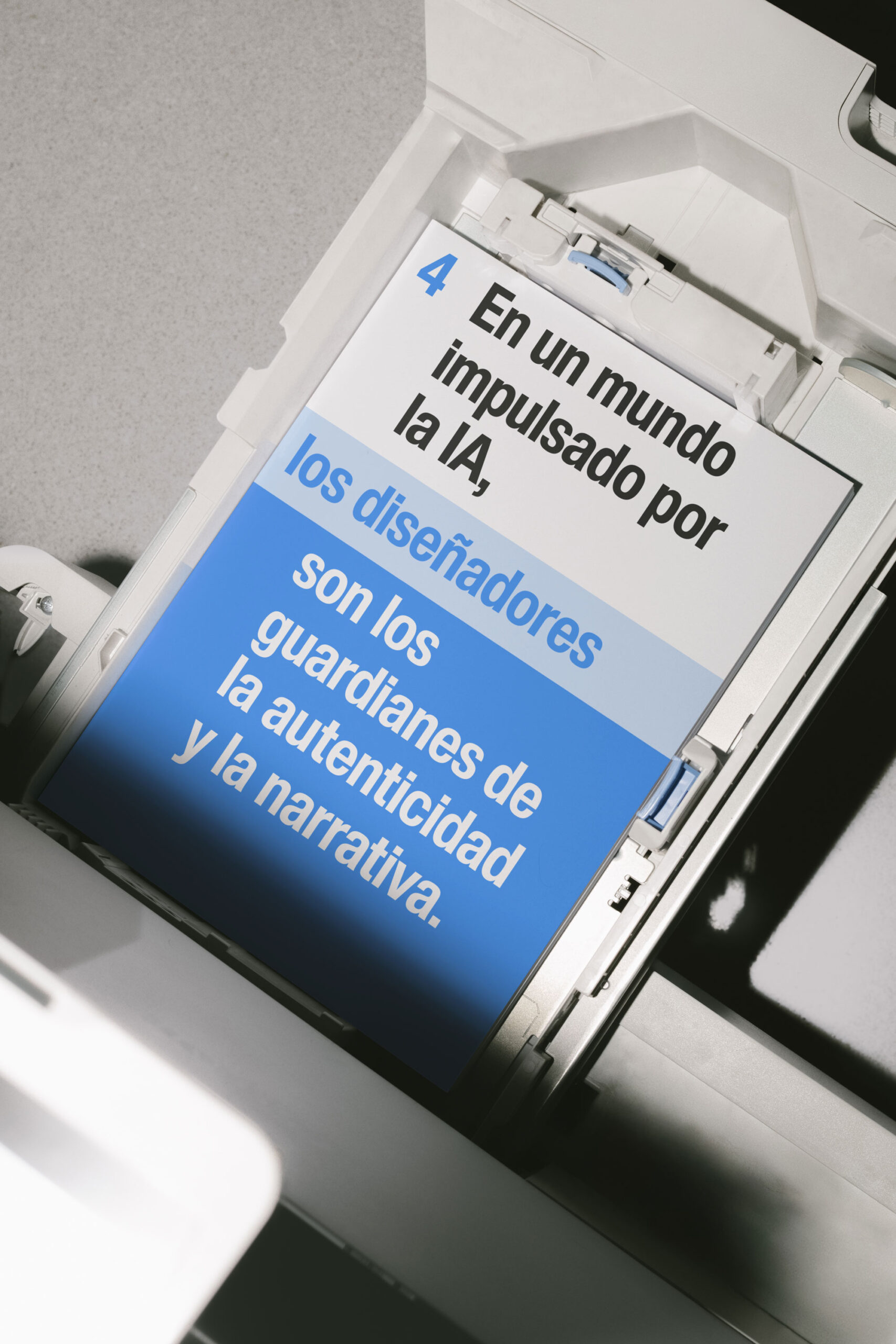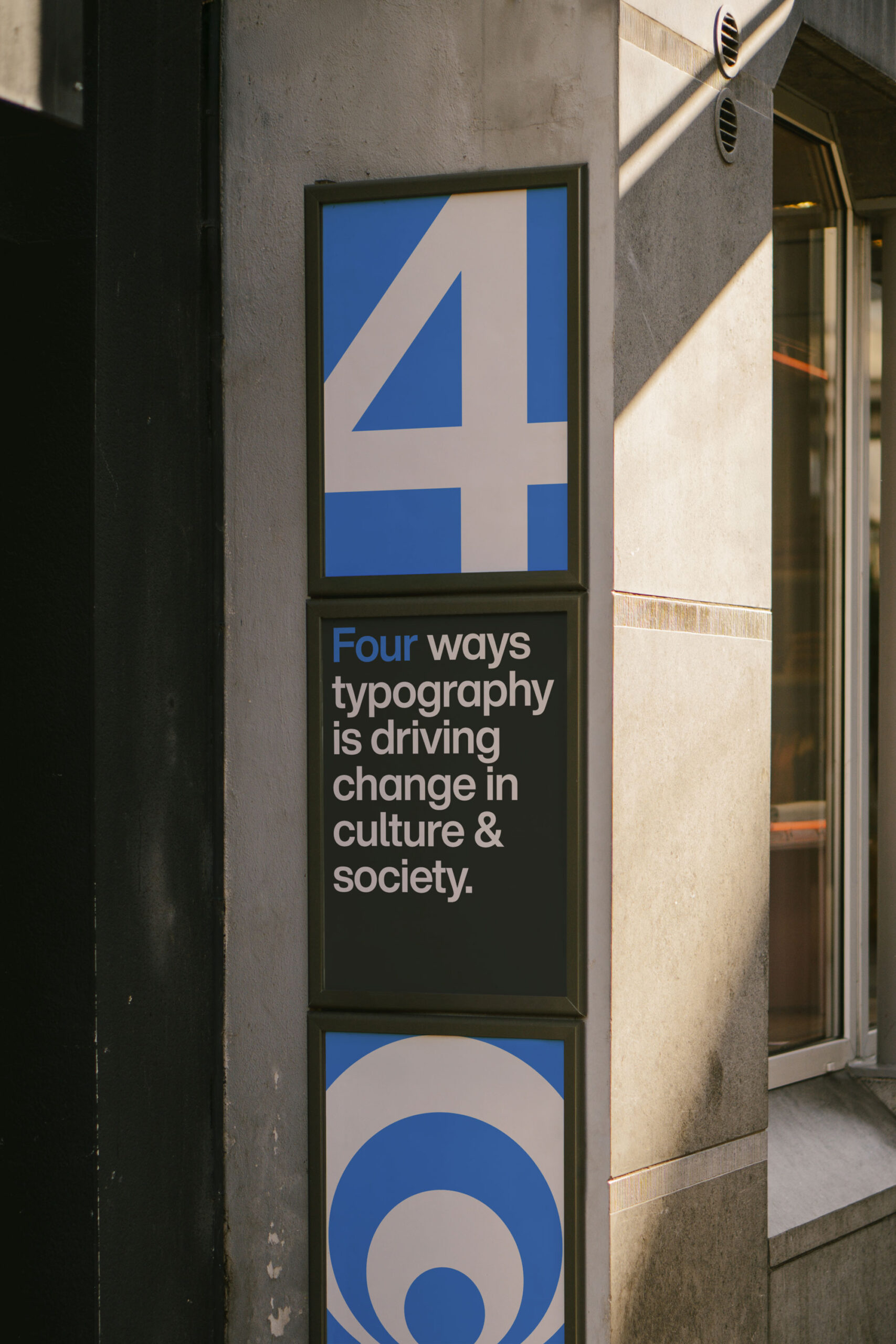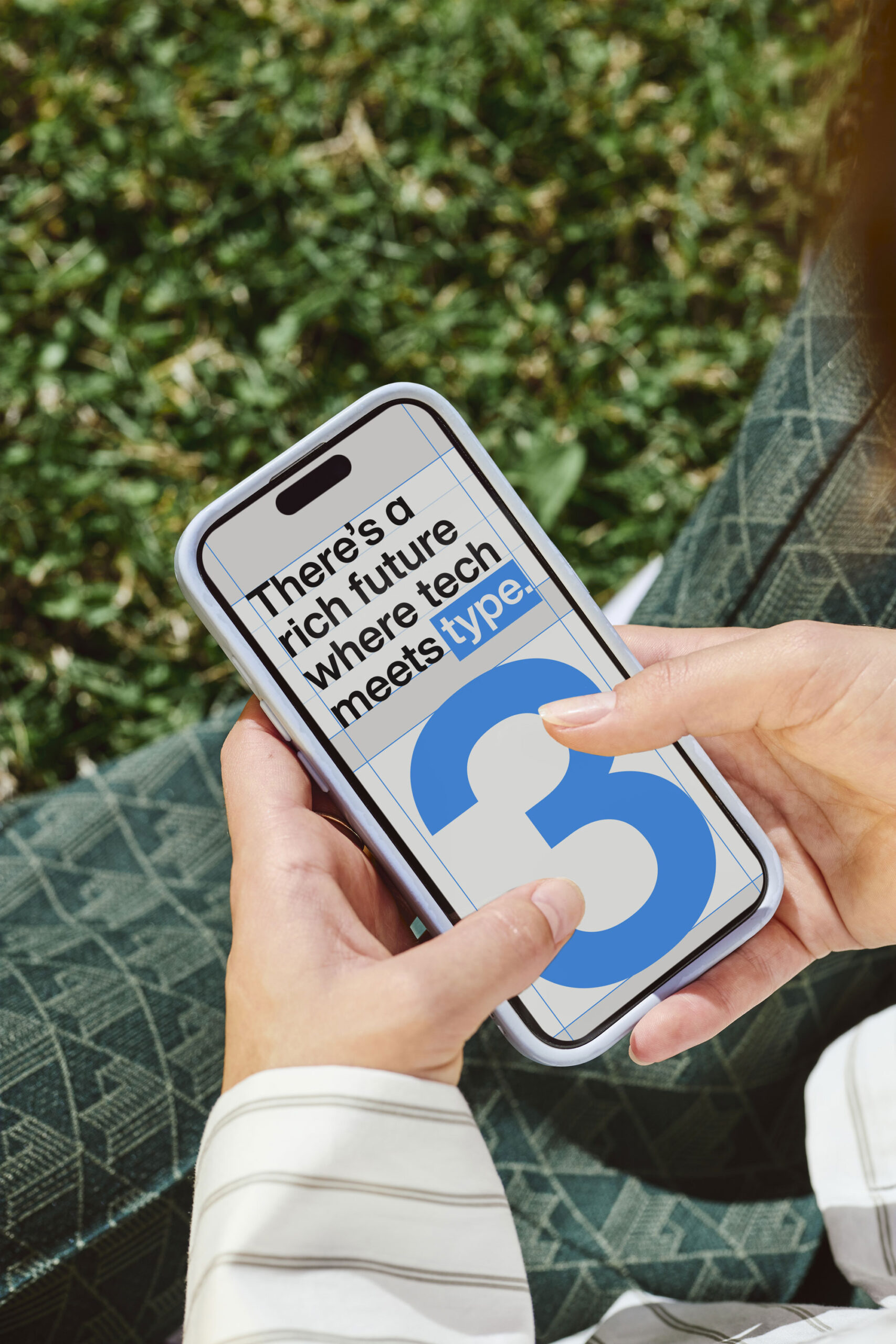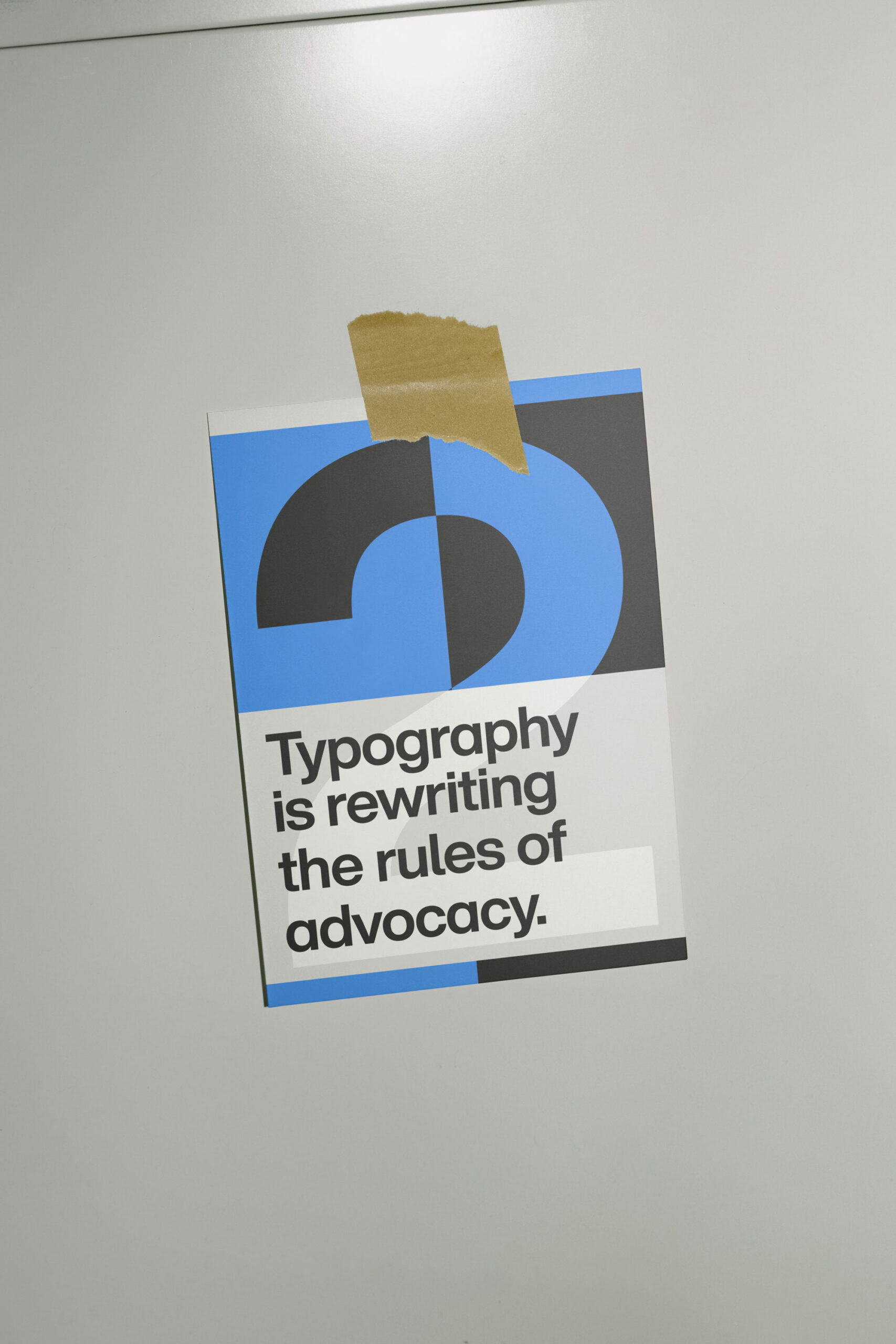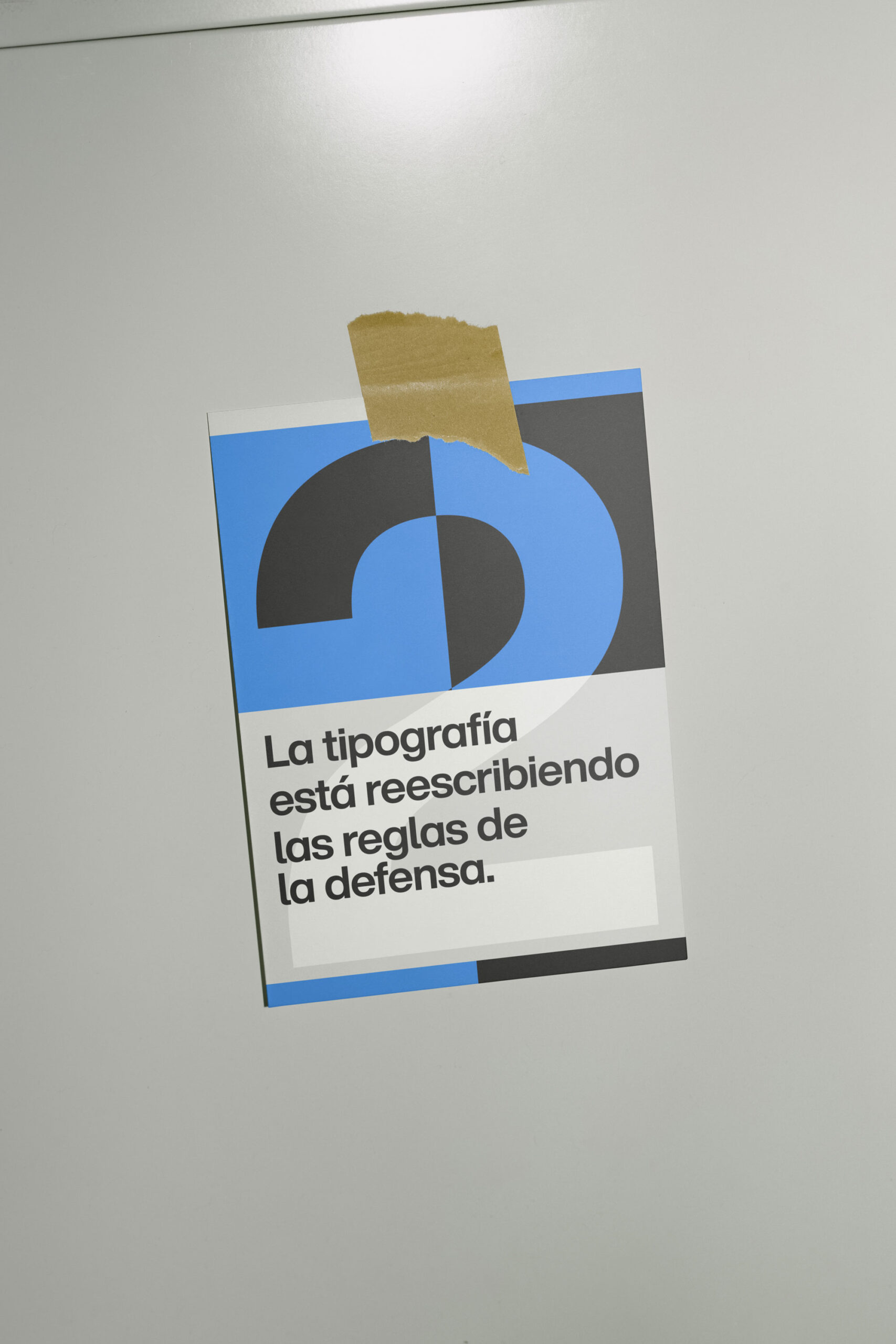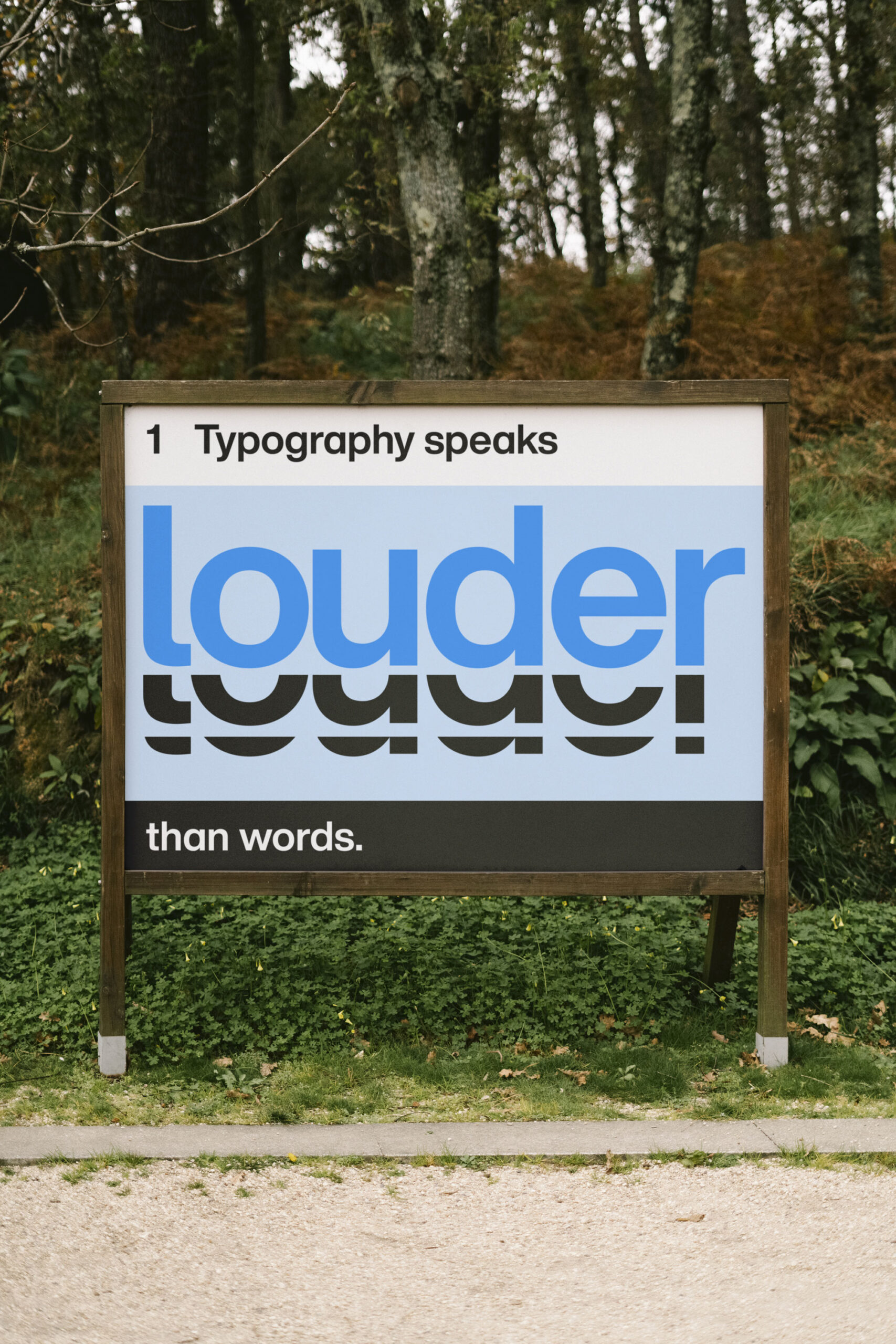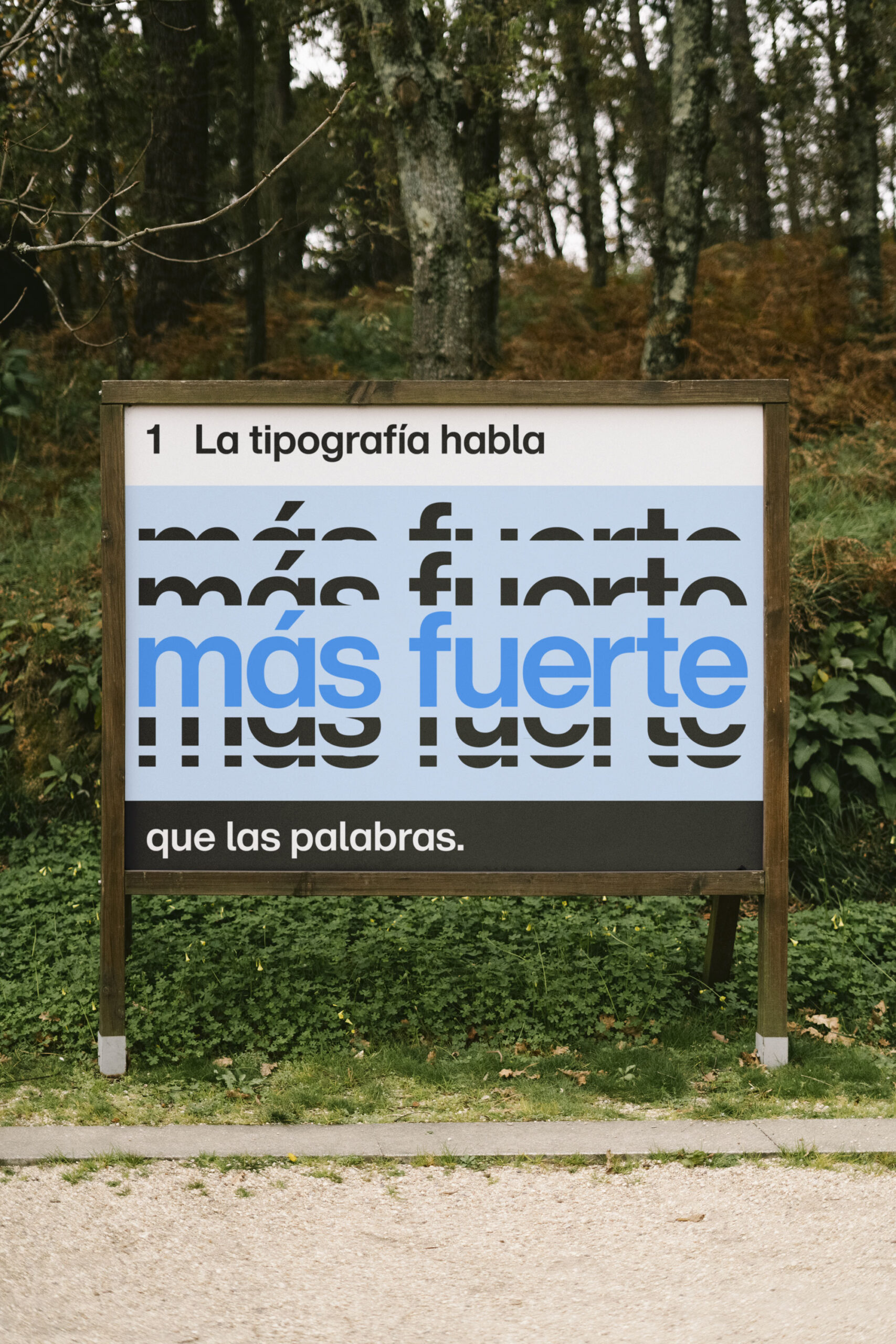
Typography and the social contract.
The balance between freedom and order is intricate. Public services and law enforcement provide stability but limit freedoms. Democracy relies on voting to maintain this balance, with the concept of “consent of the governed” at its core. When limits go too far, dissent arises through protests and demonstrations.
Typography amplifies voices in protests, legal arguments, and online agreements. It shapes how freedoms are negotiated, from fine print in contracts to bold headlines. In our digital world, typography drives creativity and readability, reflecting the ongoing tension between governance and liberty.
Four ways typography is driving change in culture and society.
Typography has become a powerful tool for addressing sensitive, universal issues and personal experiences. Type communicates emotions, challenges taboos, and builds connections through public displays, digital platforms, and other interactive spaces. In the most successful Freedom, Law & Order projects, words evolved beyond literal meanings and became a canvas for expression, tapping into shared experiences and emotions. When type is used as activism, it helps build connections between societies, between countries, and across cultures.
Standing up for your rights, advocating for others, or championing the broader community has long inspired innovative graphic expressions. In times of protest, typography becomes a dynamic tool for conveying messages in public spaces. By experimenting with styles, sizes, layouts, and movement, the D&AD New Blood submissions demonstrate the potential for type to resonate with audiences on a deeper level. Typography is not just about aesthetics; it is about creating a dialogue that reflects the struggles and triumphs of individuals and communities. Design that makes a difference, one typeface at a time.
The fusion of data, geolocation, and variable fonts has introduced forward-thinking approaches to delivering localized and adaptable content. Contextual alternates and experimental uses of sound with type pushpush the boundaries of how typography can engage across various mediums and environments.
We’ve quickly learned that AI can assist in ideation, monotonous tweaks, and rapid prototyping, allowing designers to focus on more conceptual, creative work. However, cultural sensitivity and authentic expression are the designer’s domain. Topics like Freedom, Law & Order are often shrouded in censorship, so AI faces significant challenges in sourcing authentic graphic representations and building meaningful stories. Challenges facing a human society demand human empathy and human solutions.
As part of the 2025 D&AD New Blood Awards, Monotype sponsored a brief calling for designers to explore the concepts of Freedom, Law & Order.